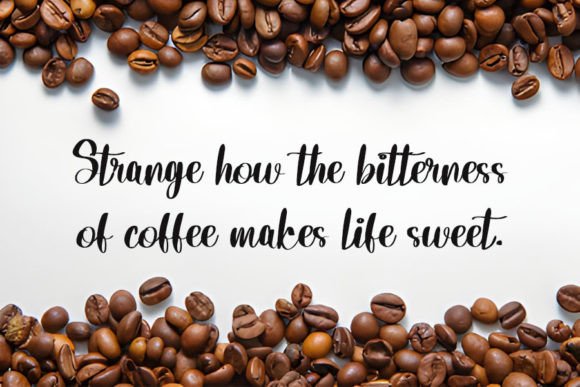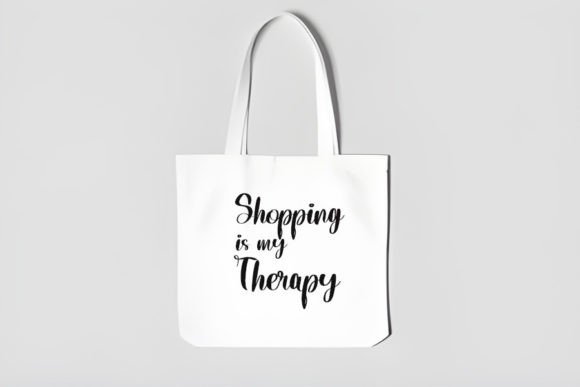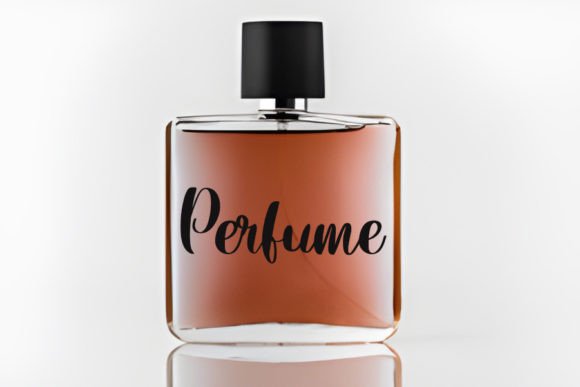
Introducing Downhill Font: The Sweet and Delicate Handwritten Font for Romantic Designs
Are you a designer or crafter looking for a font that can add a touch of romance and personality to your designs? Look no further than Downhill Font, a sweet and delicate handwritten font that’s perfect for creating beautiful wedding invitations, cards, and other designs that require a personal touch.
What is Downhill Font?
Downhill Font is a stunning handwritten font that’s characterized by its dainty and joyful feel. This font is designed to bring a sense of elegance and sophistication to your designs, making it ideal for a variety of creative projects. Whether you’re working on a wedding invitation, a greeting card, or any other design that requires a romantic touch, Downhill Font is the perfect choice.
Features of Downhill Font
So, what makes Downhill Font so special? Here are some of its key features:
- Sweet and delicate: Downhill Font is a beautifully crafted font that’s both sweet and delicate. Its intricate strokes and elegant feel make it perfect for creating romantic designs.
- Handwritten feel: This font has a genuine handwritten feel that will add a personal touch to your designs. It’s perfect for creating unique and personalized designs that stand out from the crowd.
- Dainty and joyful: Downhill Font is characterized by its dainty and joyful feel. It’s the perfect choice for designers who want to create designs that are both elegant and playful.
- Romantic and personalized: This font is designed to bring a sense of romance and personality to your designs. It’s perfect for creating wedding invitations, cards, and other designs that require a personal touch.
Uses of Downhill Font
Downhill Font is a versatile font that can be used for a variety of creative projects. Here are some of the ways you can use this font:
- Wedding invitations: Downhill Font is perfect for creating beautiful wedding invitations that are both elegant and romantic.
- Greeting cards: This font is also great for creating greeting cards for special occasions such as birthdays, anniversaries, and holidays.
- Personalized designs: Downhill Font is designed to bring a sense of personality to your designs. You can use it to create unique and personalized designs that stand out from the crowd.
- Stationery and paper crafts: This font is also perfect for creating stationery and paper crafts such as journals, planners, and scrapbook pages.
Why Choose Downhill Font?
So, why should you choose Downhill Font for your designs? Here are some reasons:
- Unique and elegant: Downhill Font is a unique and elegant font that’s sure to make your designs stand out from the crowd.
- Easy to read: This font is easy to read and understand, making it perfect for creating designs that require a personal touch.
- Versatile: Downhill Font is a versatile font that can be used for a variety of creative projects.
- High-quality: This font is of high-quality and is designed to bring a sense of sophistication and elegance to your designs.
| Font Name | Downhill Font |
| Author | Peroscope Design |
In conclusion, Downhill Font is a sweet and delicate handwritten font that’s perfect for creating romantic and personalized designs. Its dainty and joyful feel makes it ideal for wedding invitations, cards, and other designs that require a personal touch. With its unique and elegant feel, Downhill Font is sure to make your designs stand out from the crowd. So, if you’re looking for a font that can add a touch of romance and personality to your designs, look no further than Downhill Font.